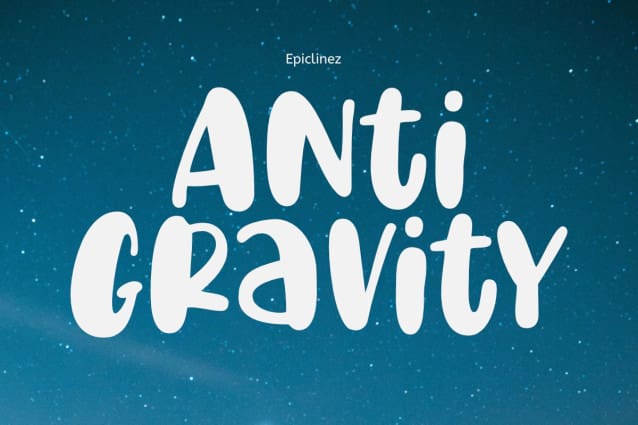
Anti Gravity Font
Anti Gravity Font is a cute and funny display font. Its simple and friendly style makes this design incredibly versatile, fitting a wide variety of creative ideas.